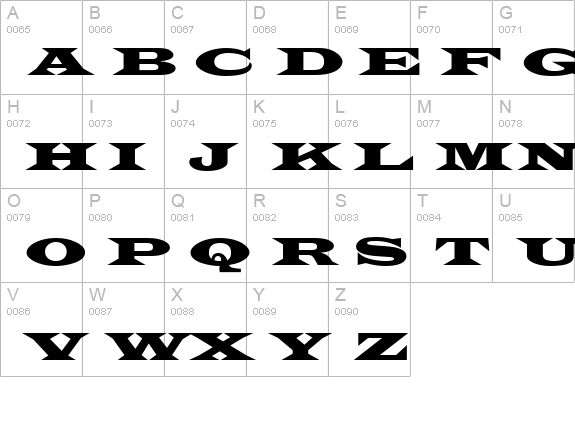
Latin WideExt Normal Font Details
Latin WideExt Normal is the standard, neutral variant in the Latin typeface family \xE2\x80\x94 well suited to general body text, paragraphs, and standard typographic work.
Latin WideExt Normal is a versatile and stylish font that brings a touch of elegance to any design project. With its clean lines and modern look, this font is perfect for creating eye-catching headlines, logos, and branding materials. The Latin WideExt Normal font features a wide and extended letterform, adding a unique sense of space and sophistication to your designs. Its bold and assertive appearance makes it ideal for projects that require a strong visual impact. What sets Latin WideExt Normal apart is not just its stunning design, but also the fact that it is completely free to download. That's right, you can enjoy the beauty and versatility of this font without spending a dime. It is freely available for download at FontsMarket.com, a reputable website that offers a wide range of high-quality fonts for designers and creatives. Whether you're working on a professional project or simply looking to add a touch of elegance to personal designs, Latin WideExt Normal is the perfect choice. Its clear and legible characters make it easy to read at various sizes, ensuring that your message gets across effectively. So why wait? Enhance your designs with the captivating Latin WideExt Normal font today. Download it for free at FontsMarket.com and unleash the full potential of your creativity.